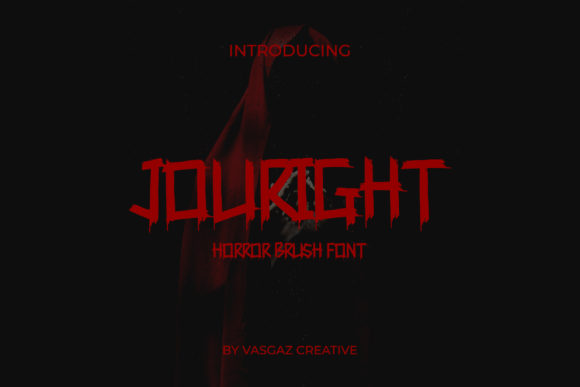
Unleash Your Darkest Creatives with Jouright: The Spooktacular Display Font for Haunting Designs!
Journey into the realm of the macabre and let your imagination run wild with Jouright, the ultimate display font crafted to evoke a sense of spine-chilling horror in your designs. Inspired by the haunting tales of supernatural beings and eerie legends, Jouright is a masterfully crafted brush display font that will transform your words into chilling whispers and bone-rattling proclamations.
With its sharp angles, elongated strokes, and deliberate imperfections, Jouright possesses an aura of mystery and darkness that will captivate your audience from the very first glance. Each character is meticulously designed to exude a sense of dread, making Jouright the perfect font for creating logos that send shivers down the spine and posters that haunt the dreams of your viewers.
Whether you're a graphic designer looking to create spine-tingling Halloween-themed posters, a writer crafting a chilling novel, or a filmmaker conjuring up a haunting cinematic experience, Jouright will be your loyal companion, adding an unforgettable touch of horror to your every creation. Its versatility extends to social media graphics, website banners, and movie titles, ensuring that your message is delivered with a chilling impact that lingers in the minds of your audience long after they've encountered it.
So, if you dare to embrace the darkness and unleash your creative demons, let Jouright be your guide. With its sinister charm and undeniable power to horrify, this font will elevate your designs to a new level of spine-chilling brilliance.